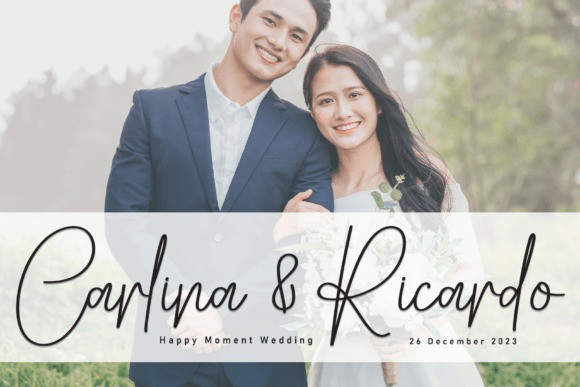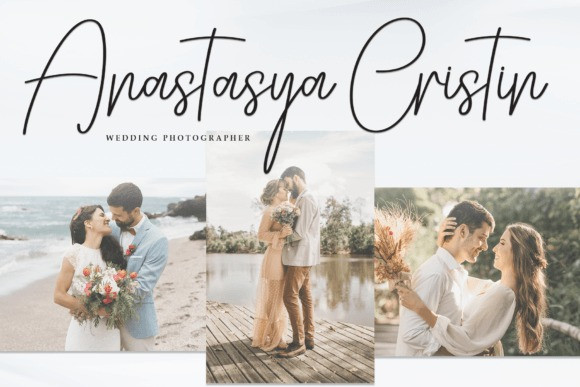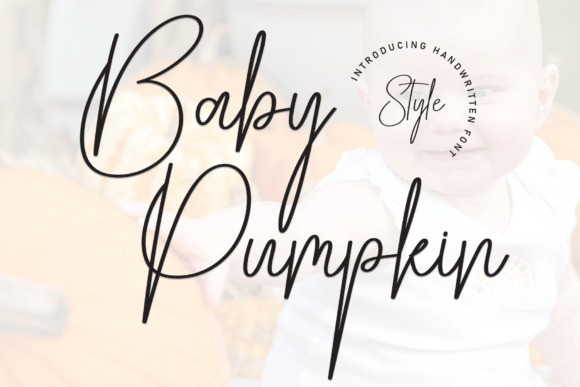
Baby Pumpkin Font
Baby Pumpkin Font is a sweet and friendly handwritten font. Its natural and unique style makes it incredibly fitting to a large pool of designs. The only limit is your imagination!